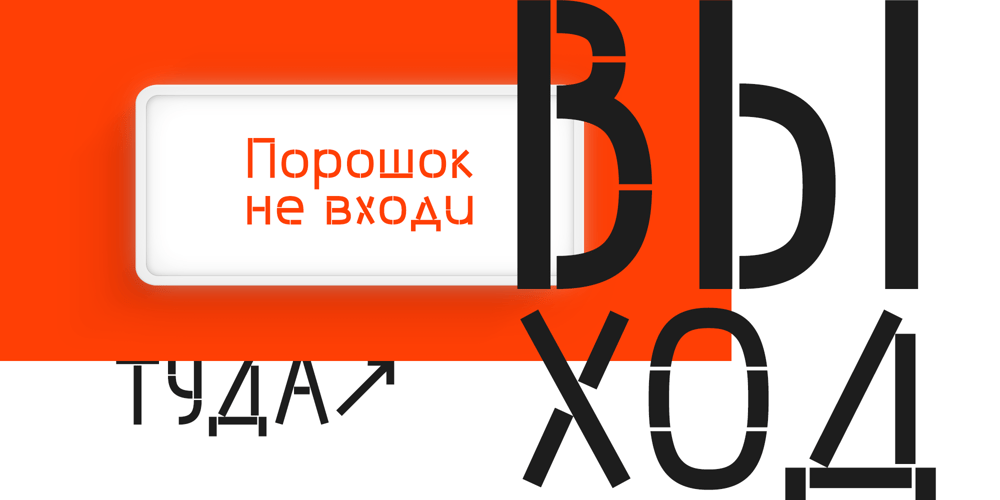
Grossesbuch Font Family was designed by Andrey Ukhanev and published by Andrey Ukhanev. Grossesbuch contains 1 styles and family package options. Grossesbuch is a modern sans serif typeface. The starting point of which was the sketchbook pages.Using a wide-nib nib, I turned the nib so that the stroke was always wide. The sketchbook pages looked like posters. Later, having become interested in fonts, I decided to transfer the drawn letters and make a typeface.I think that the range of use is various accidents: posters, headlines, postcards, captions.